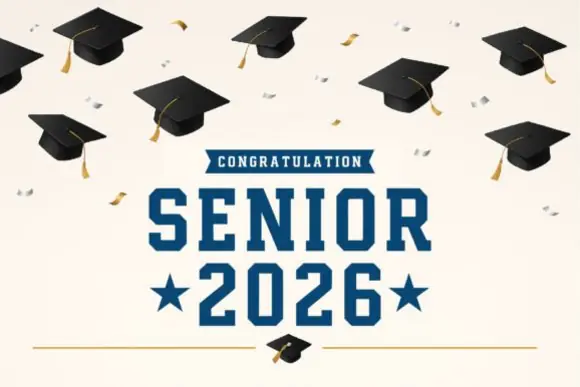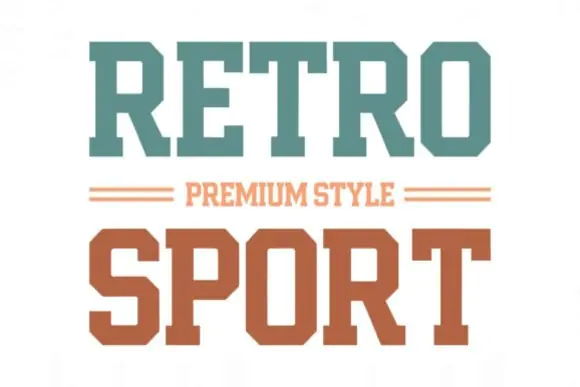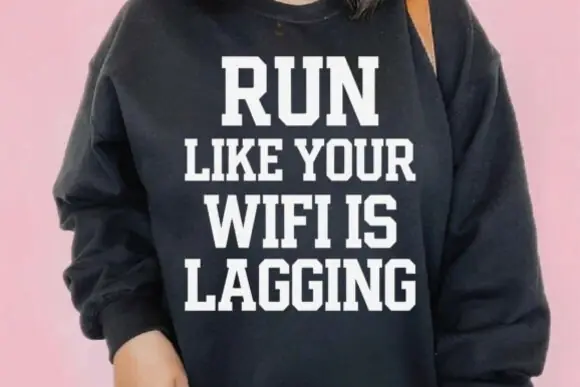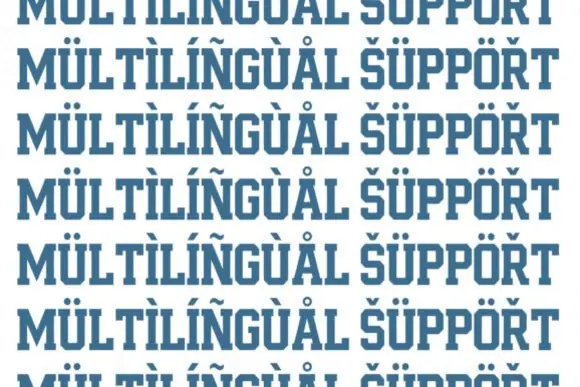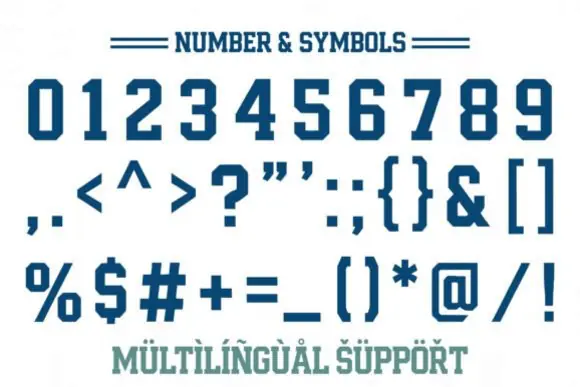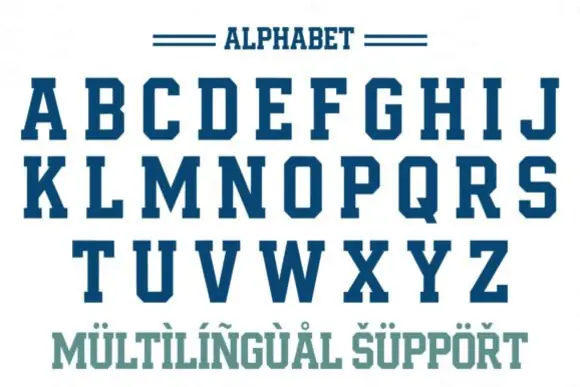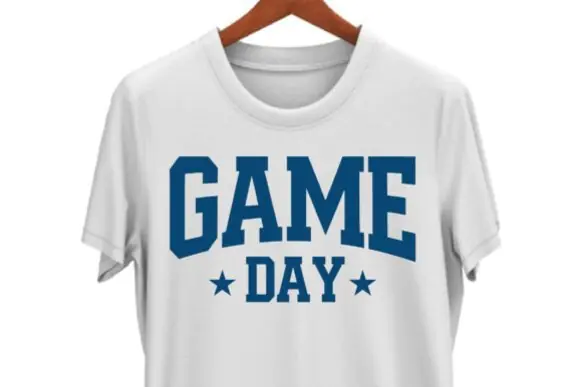
Create strong, bold, and professional sports-inspired designs with Varsity Athletic Font, a collegiate-style display typeface inspired by classic sports lettering, varsity team graphics, and traditional university design. With its bold block shapes and clean structure, this font delivers a confident athletic look that stands out clearly in both print and digital projects.
Varsity Athletic is perfect for designers, sports teams, school clubs, apparel sellers, print-on-demand creators, merchandise makers, and branding professionals who want a clean and powerful varsity-style font. It works beautifully for t-shirts, jerseys, hoodies, team logos, school spirit graphics, posters, banners, stickers, athletic merchandise, university branding, and sports-themed designs.
This font includes uppercase letters, numbers, symbols, and multilingual support, making it versatile and easy to use across different creative projects and languages. Its professional collegiate appearance makes it suitable for sports brands, academic designs, fitness graphics, tournament posters, championship merchandise, and custom team apparel.
Whether you are creating a football shirt, basketball team logo, school event poster, university merch design, gym branding, or vintage varsity-style graphic, Varsity Athletic Font gives your typography a bold, authentic, and polished sports identity.